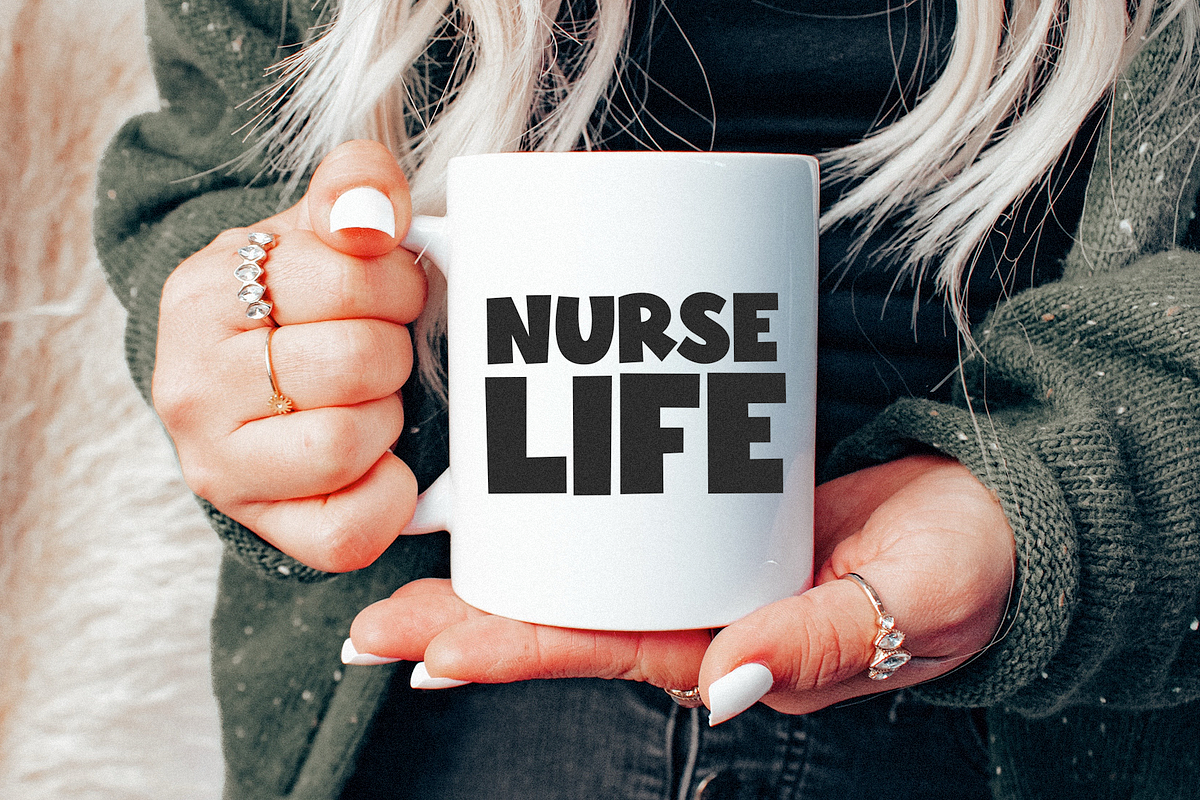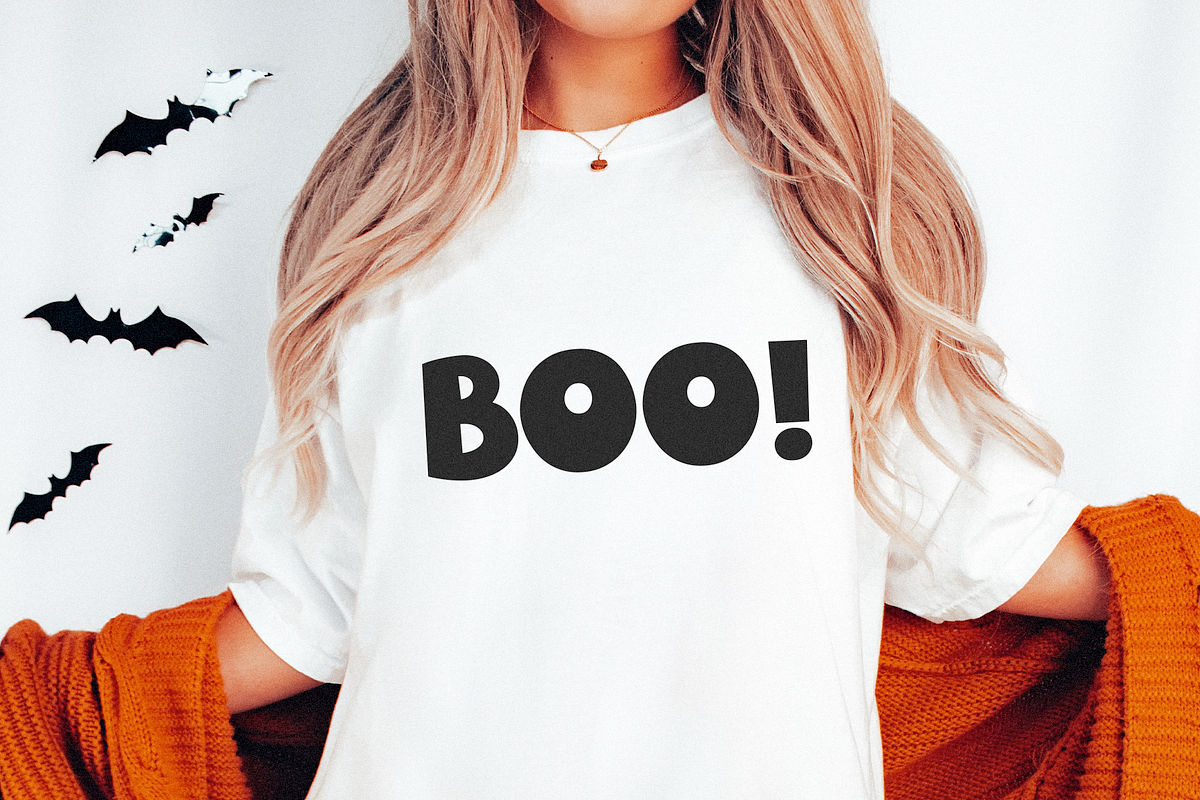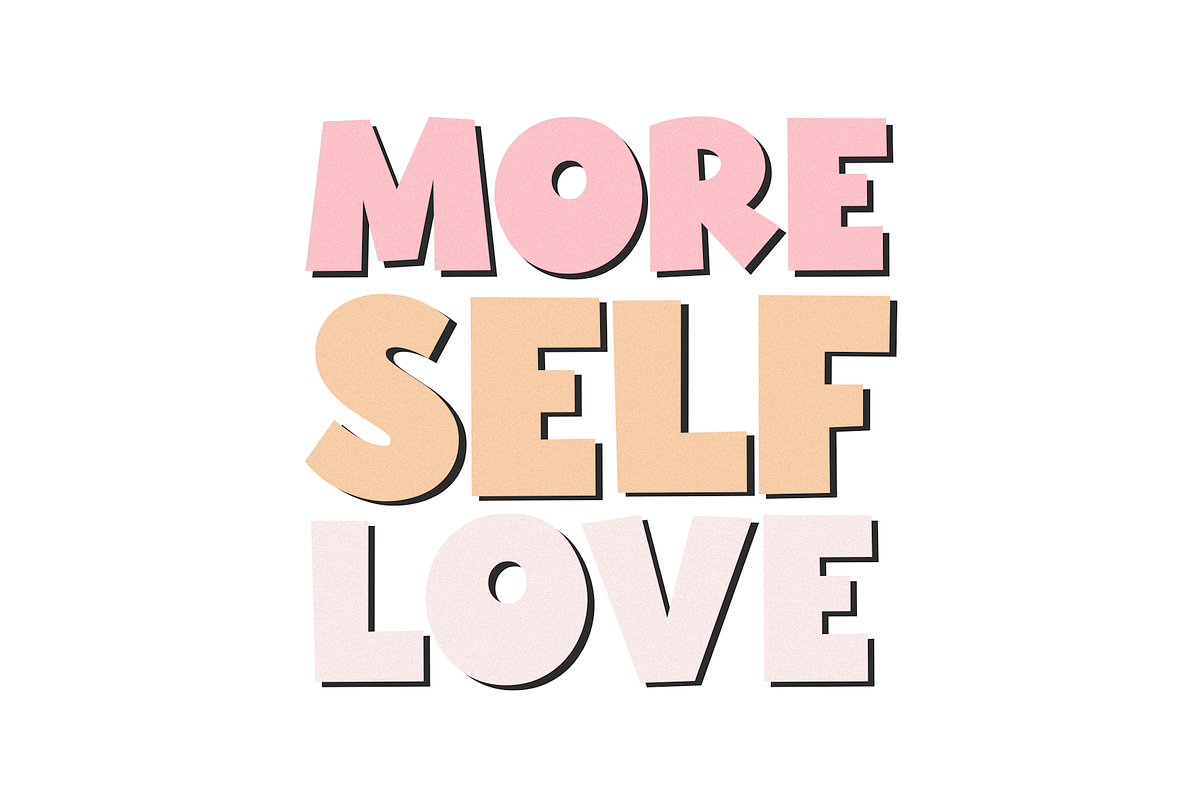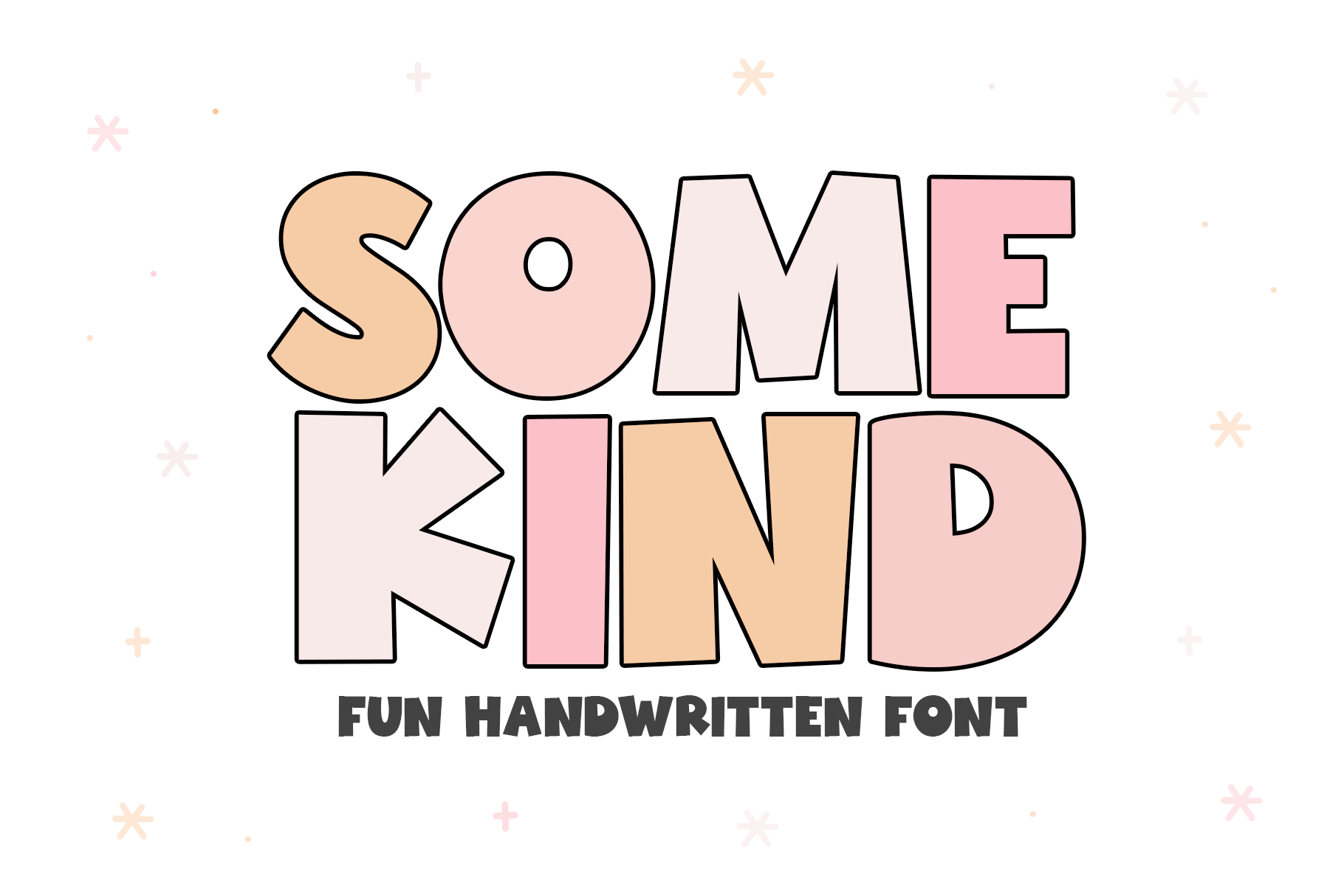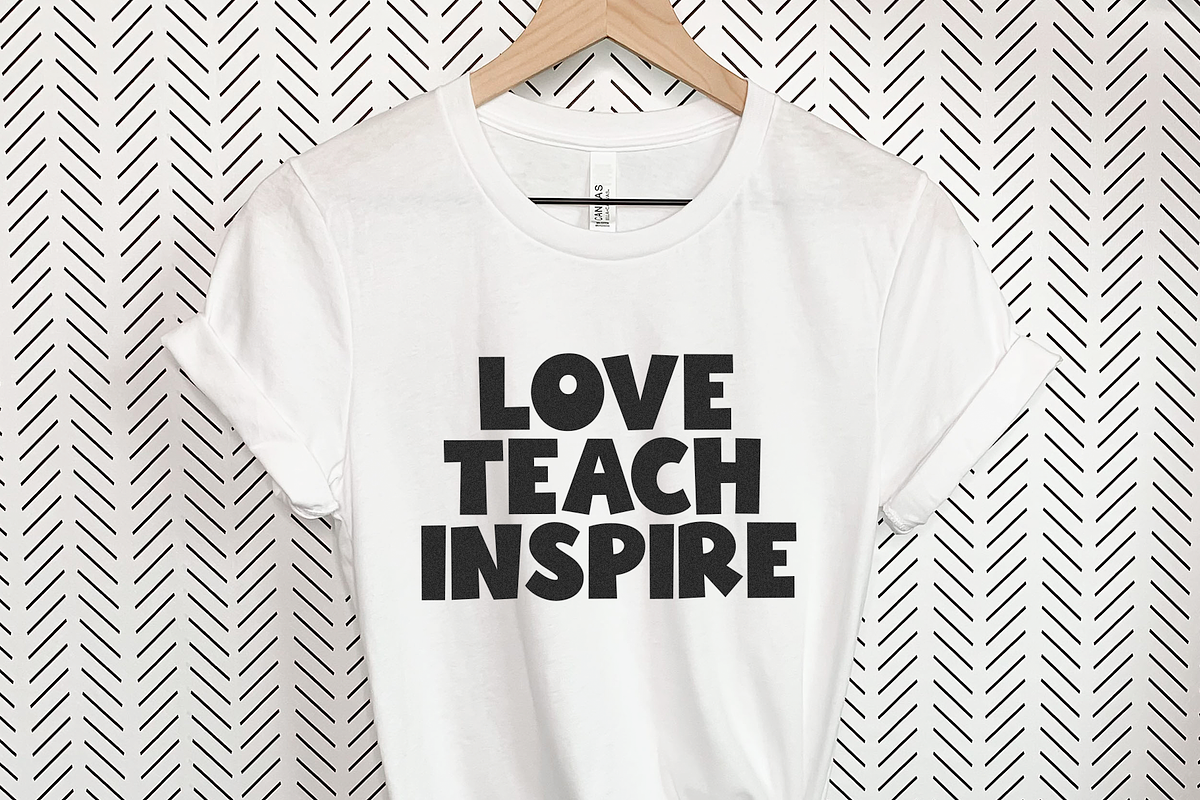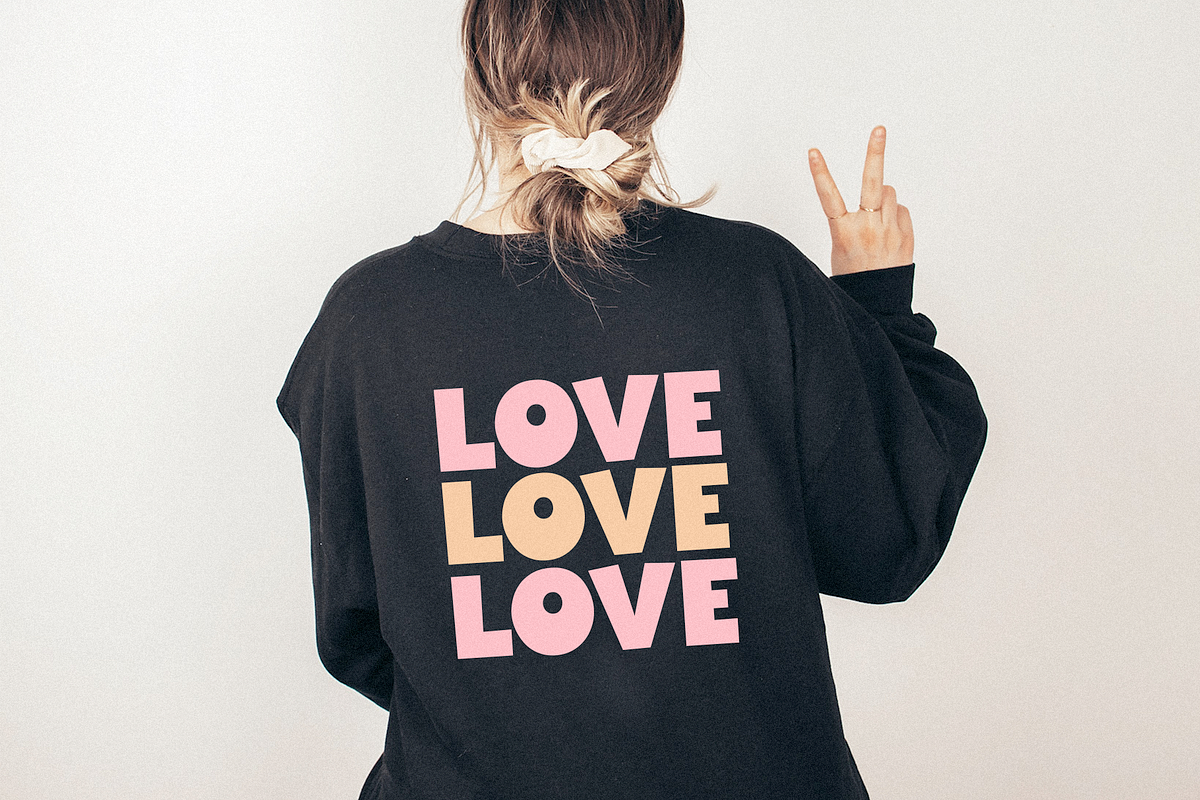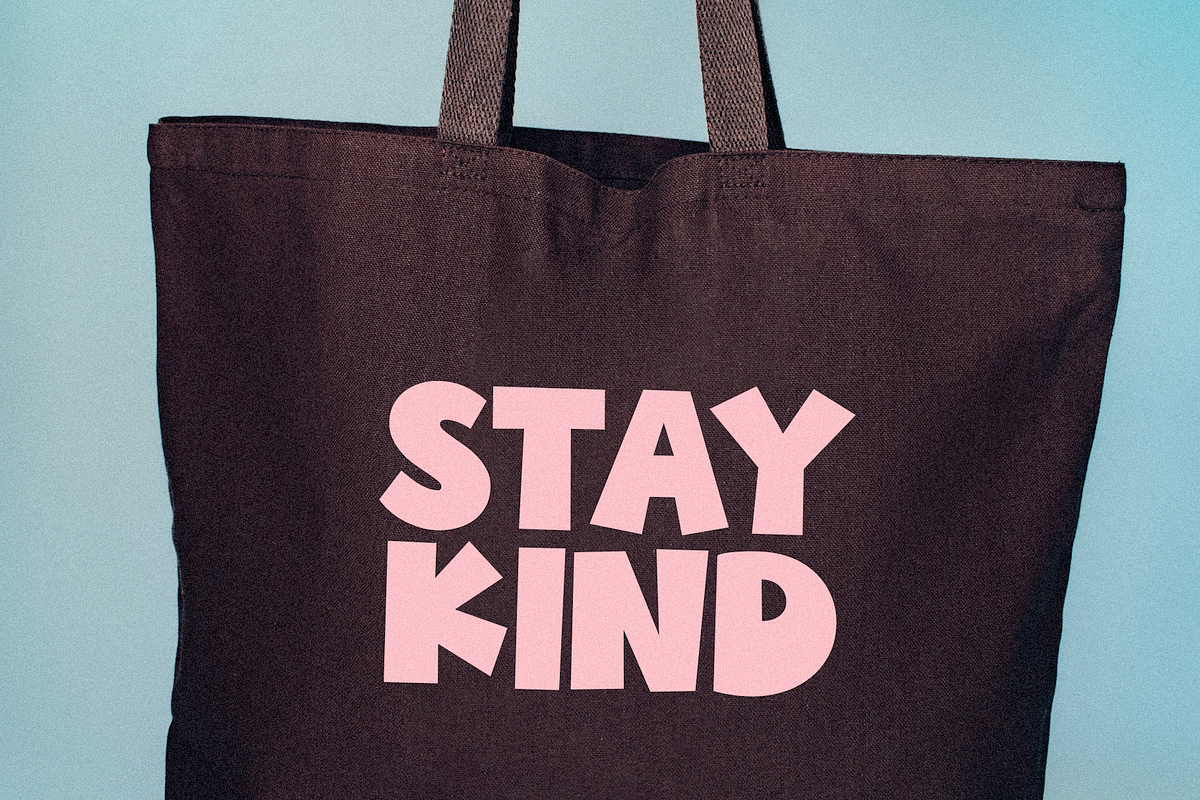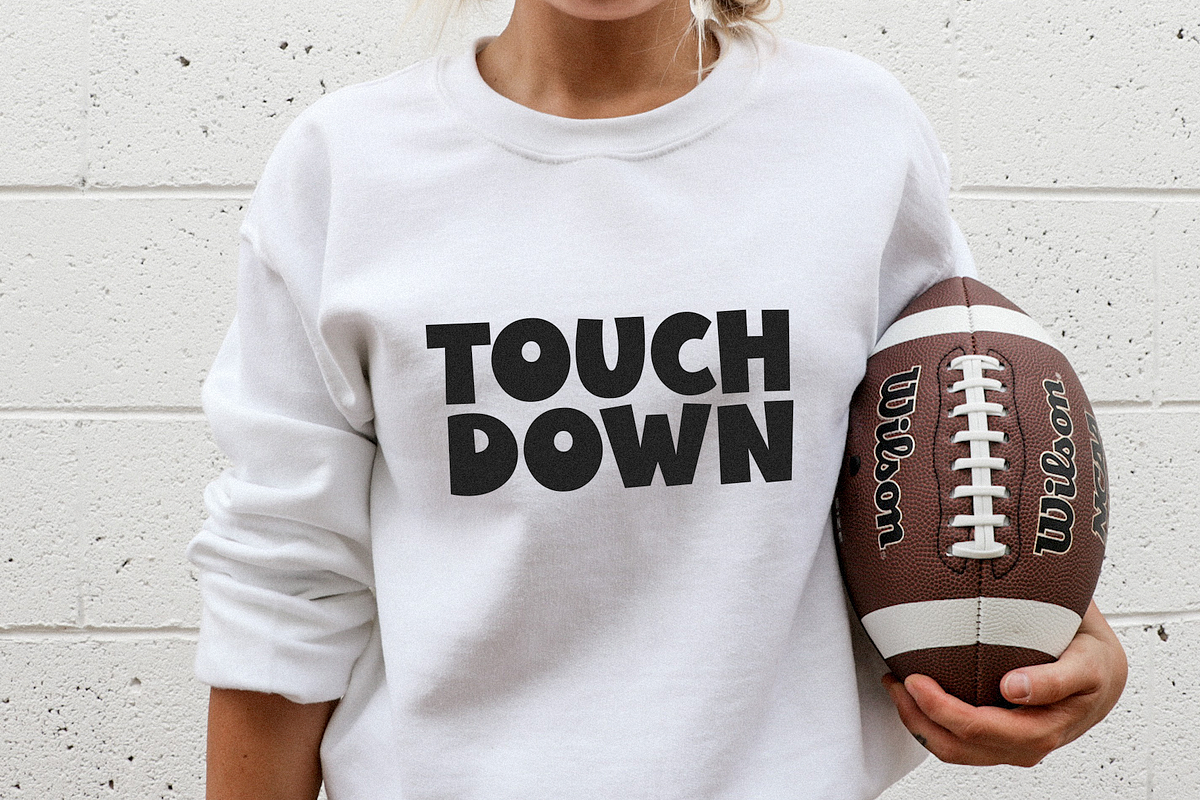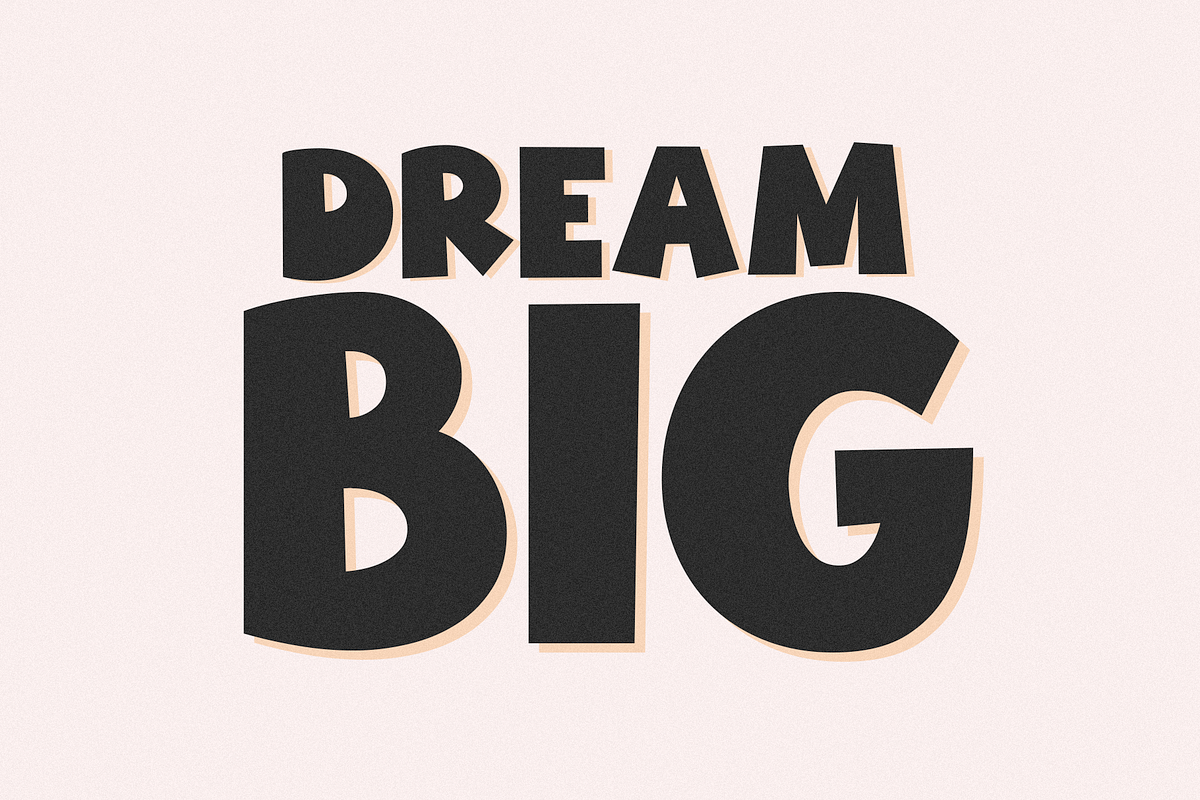
Somekind | Fun Handwritten Font
Somekind is a fun handwritten font with big, bold letters!
This font is perfect for your logos, signs, products, crafts, cricut projects, shirts, stickers, procreate and more!